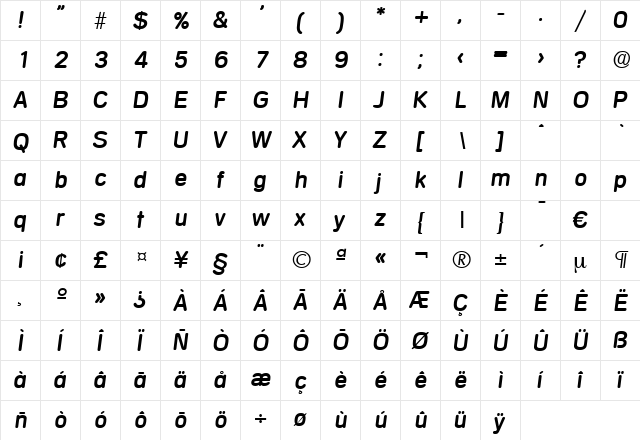
Mercedes-MediumIta Regular Font Preview
Mercedes-MediumIta Regular
Design Context for Mercedes-MediumIta Typeface
Mercedes-MediumIta takes a measured approach to typography — its balanced proportions and neutral character make it a reliable workhorse for both digital and print work.